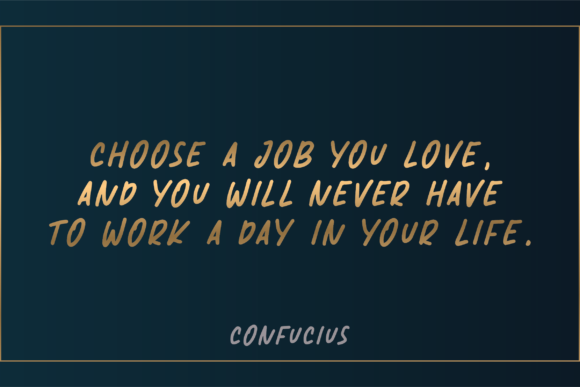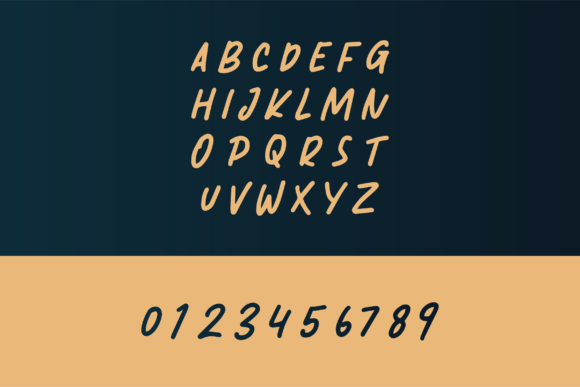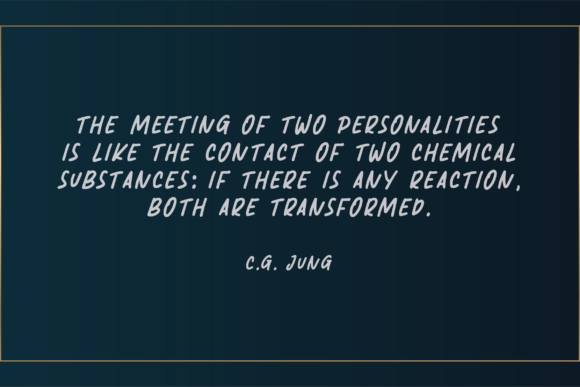
Kenneth Font
About Kenneth Font
Kenneth is a beautiful and attractive handwritten font. The curves in each arrangement make it look unique and natural. It also looks good when used as quotes, diaries, books, posters, and invitations.